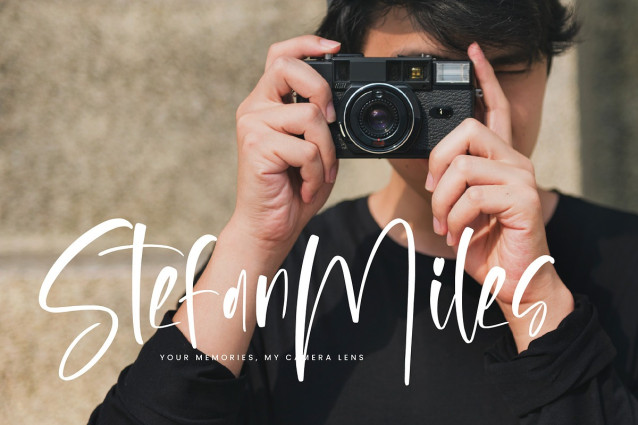
Flesmingo Script Font
Flesmingo Script Font – A Modern Handwritten Font, from Integritype Studio, perfect for any project like: logos, branding projects, homewares designs, product packaging, mugs, quotes, posters, shopping bags, t-shirts, covers books, business cards, invitation cards, greeting cards, labels, photography, watermarks, special events and all your other luxury projects that require a premium taste.